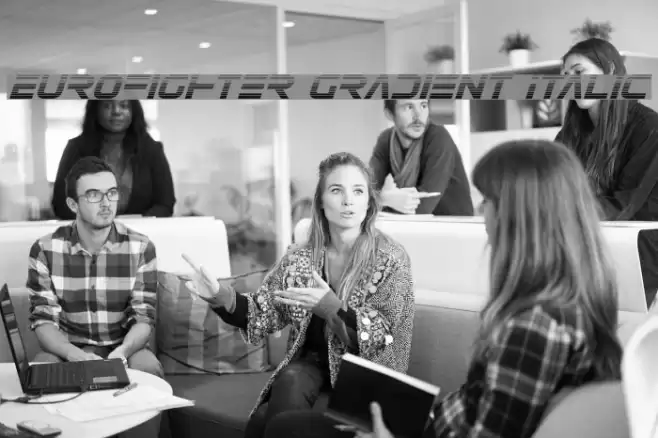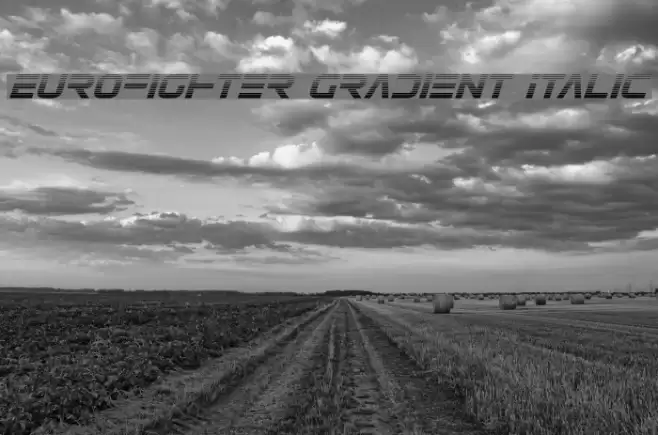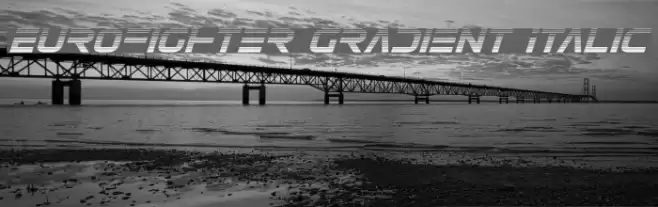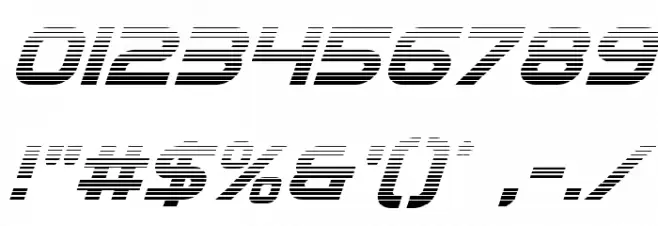
Eurofighter Gradient Italic Font
Eurofighter Gradient Italic Description
This font features a dynamic and futuristic design with a distinct italic slant. The characters are composed of horizontal lines that create a gradient effect, giving a sense of motion and speed. The uppercase and lowercase letters maintain a consistent style, with sharp angles and clean lines. The numerals and special characters follow the same design principles, ensuring uniformity across all glyphs. This font is ideal for projects that require a modern and energetic aesthetic.
A futuristic italic font with gradient lines and a dynamic style from Uncategorized fonts.
- Proposed Projects: Ideal for branding, sports team logos, automotive designs, and tech-related projects.